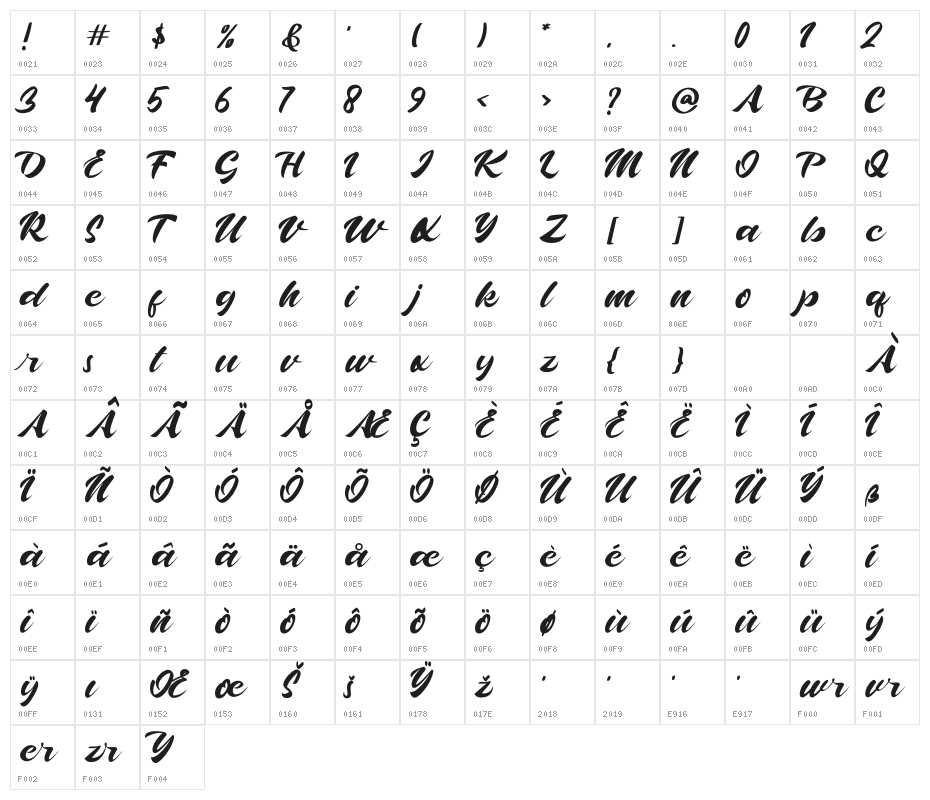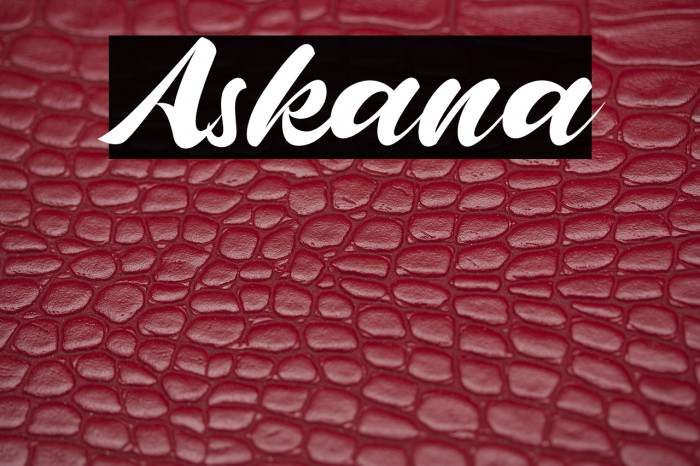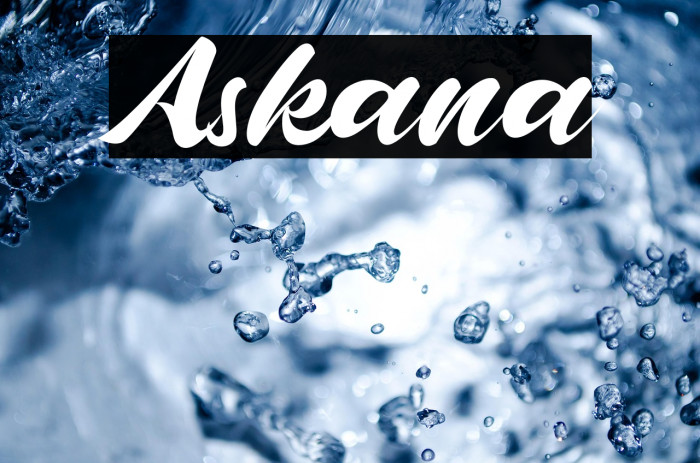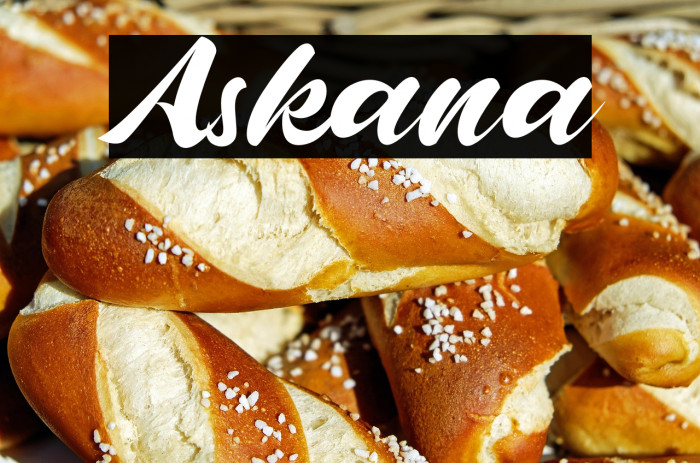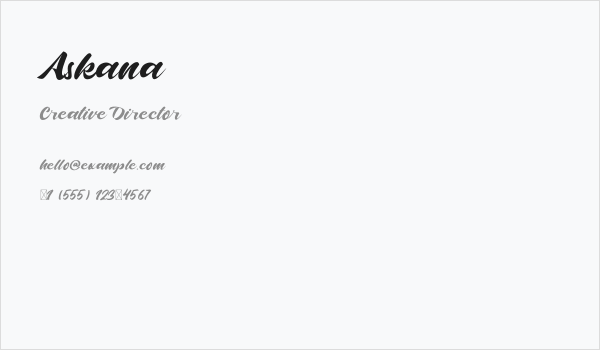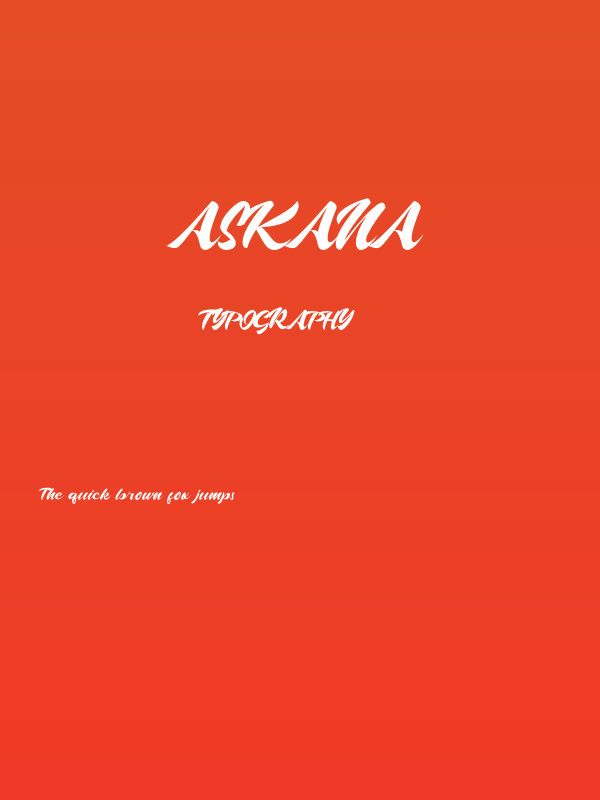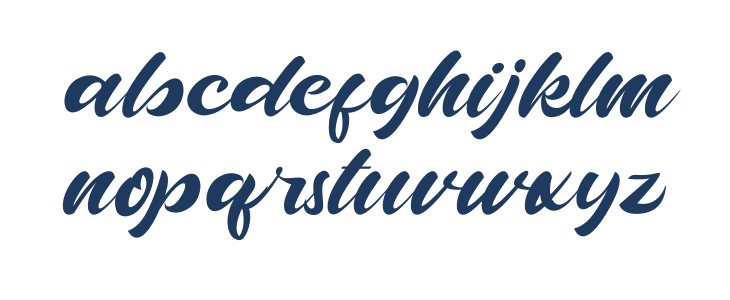
Askana Font
Askana Description
This font features a bold and flowing script style, characterized by its elegant and dynamic strokes. The letters are interconnected, creating a sense of fluidity and movement. The uppercase letters exhibit a dramatic flair with sweeping curves, while the lowercase letters maintain a consistent rhythm. The numerals are bold and easily readable, complementing the overall aesthetic. Special characters are designed with the same attention to detail, ensuring they blend seamlessly with the rest of the typeface. This font is ideal for projects that require a touch of sophistication and elegance.